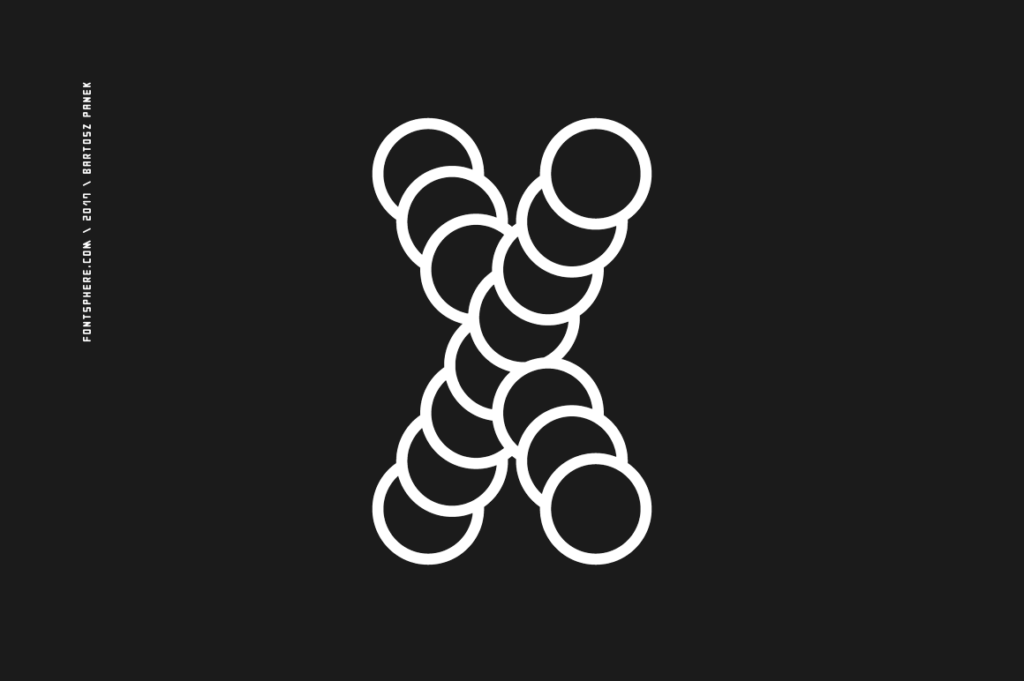
Let me tell you a story. I was walking down the promenade yesterday, nice weather, though I kept thinking it might rain and I’d left my umbrella at home. Then I noticed a woman passing by, what caught my eye was her pendant. I glanced sideways, we made eye contact, I looked away so as not to embarrass her. But I had to know. Because it was a glyph, one of those shapes that stops you mid-step. I had to get closer.
Ah, but I should probably explain why that matters, because it has everything to do with Fontsphere.
Someone once said the world has enough fonts. They were wrong.
Fontsphere is an independent type foundry specializing in geometric and display typefaces. Each font draws from minimalism, pixel art, and a quiet obsession with the grid, built for designers who want their work to stand out. Founded by Bartosz Panek, a designer of logos, visual identities, and pixel art, Fontsphere celebrates clean, modern design with a twist. Whether you’re looking for a pixel-perfect font or a bold display typeface, every release is thoughtfully crafted to bring originality and clarity to your projects.